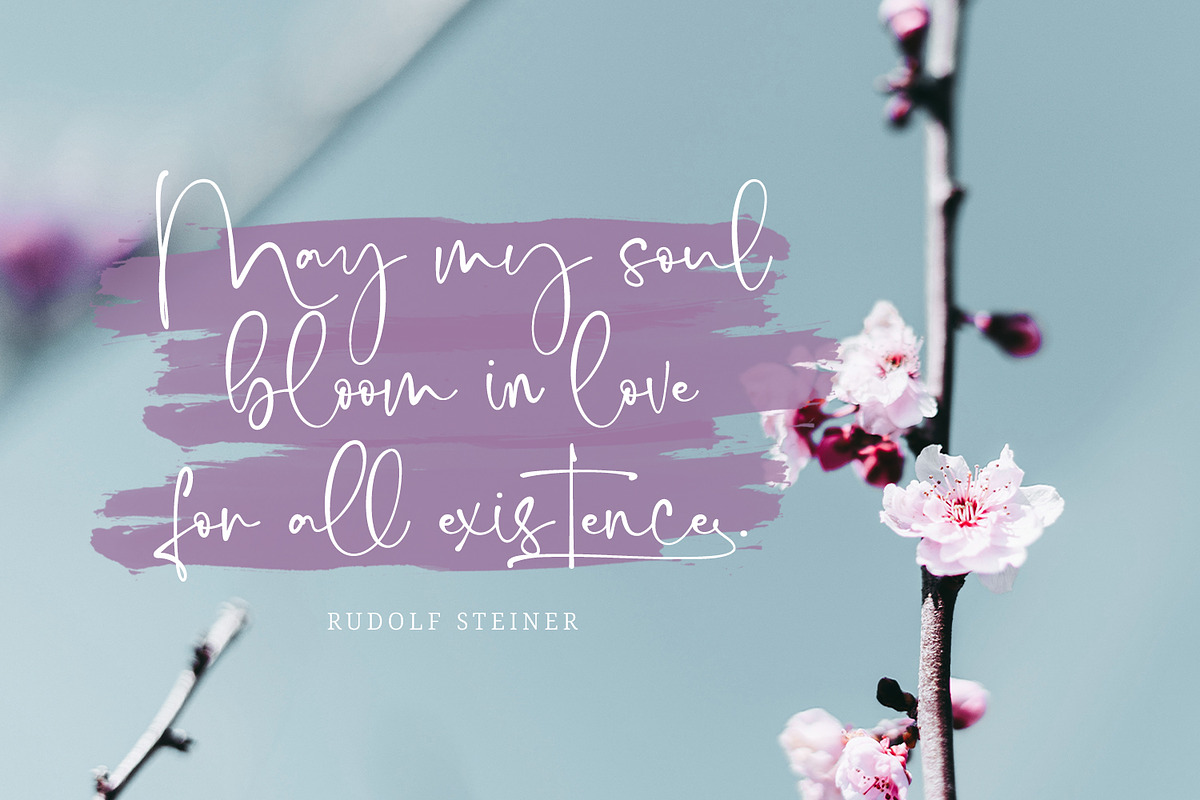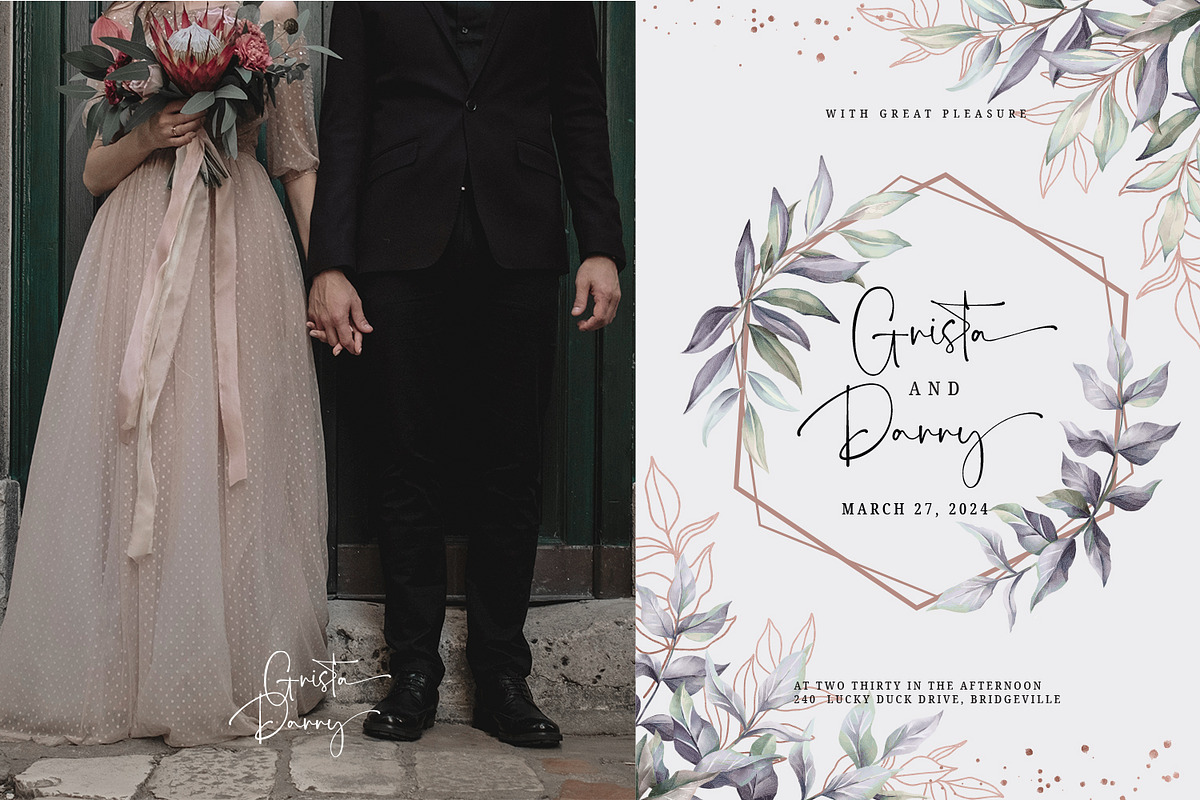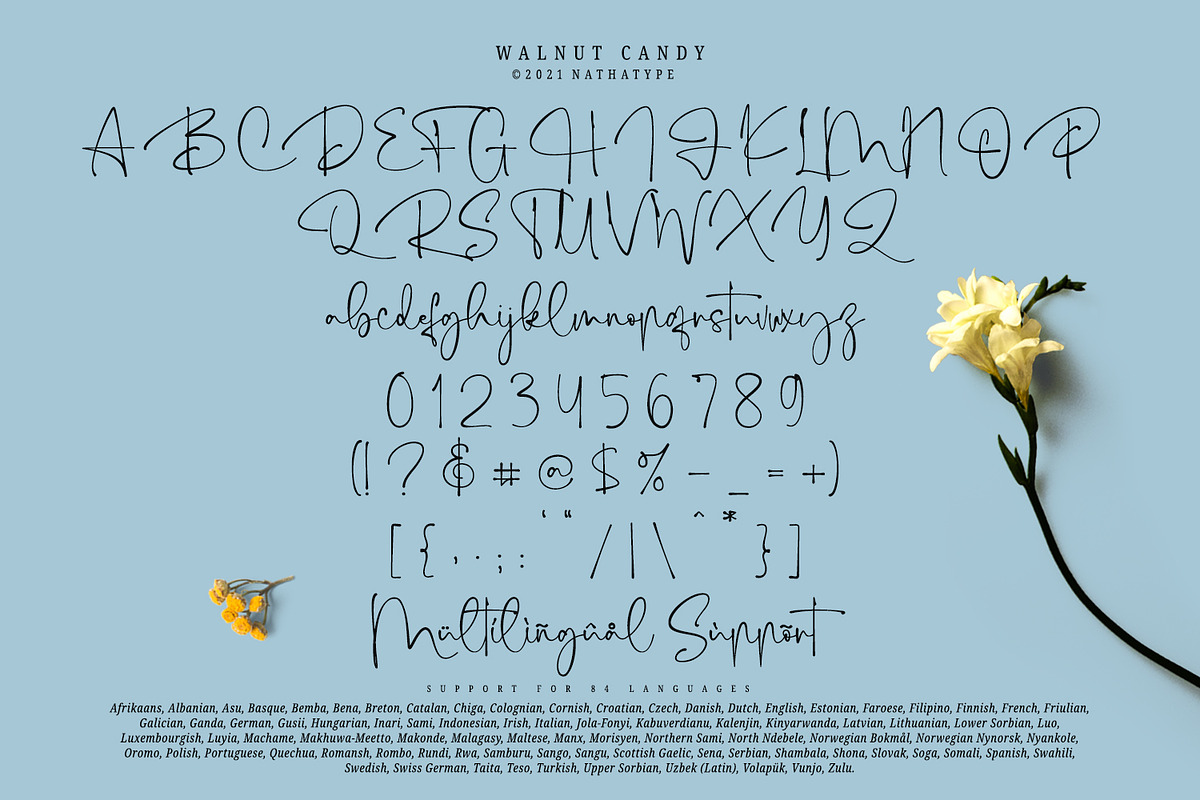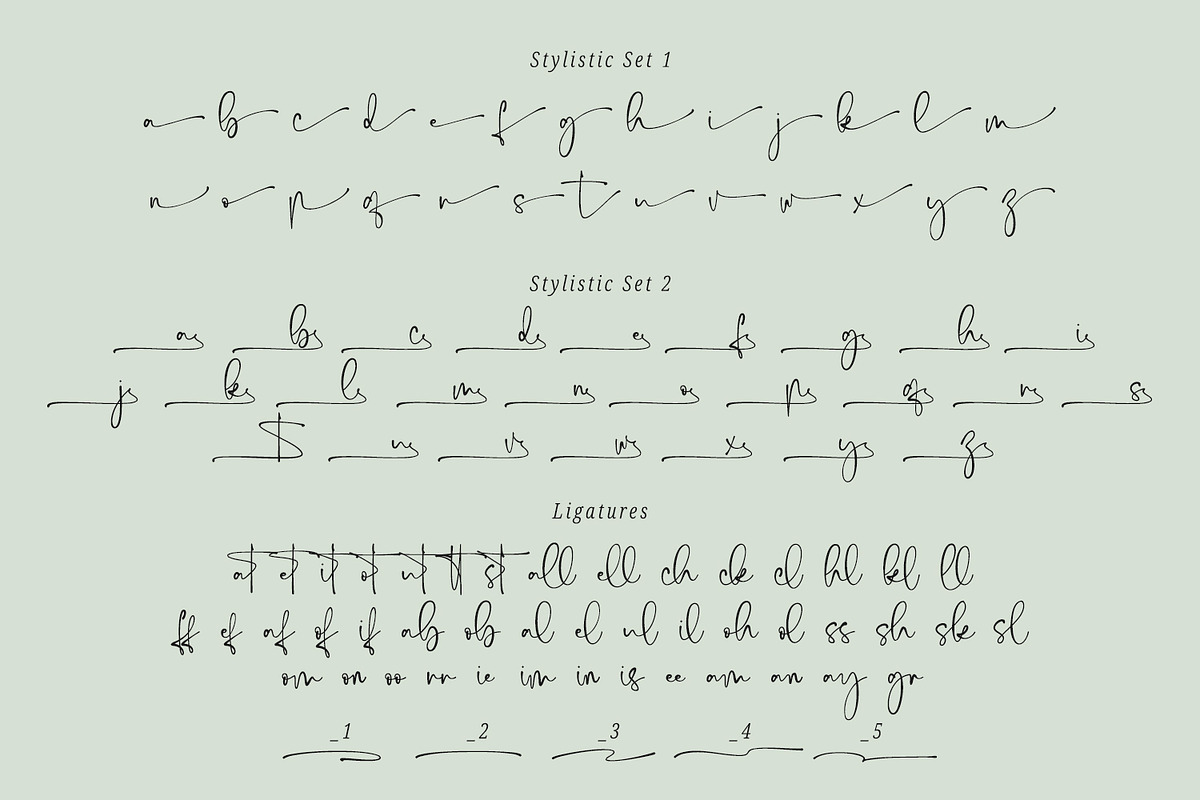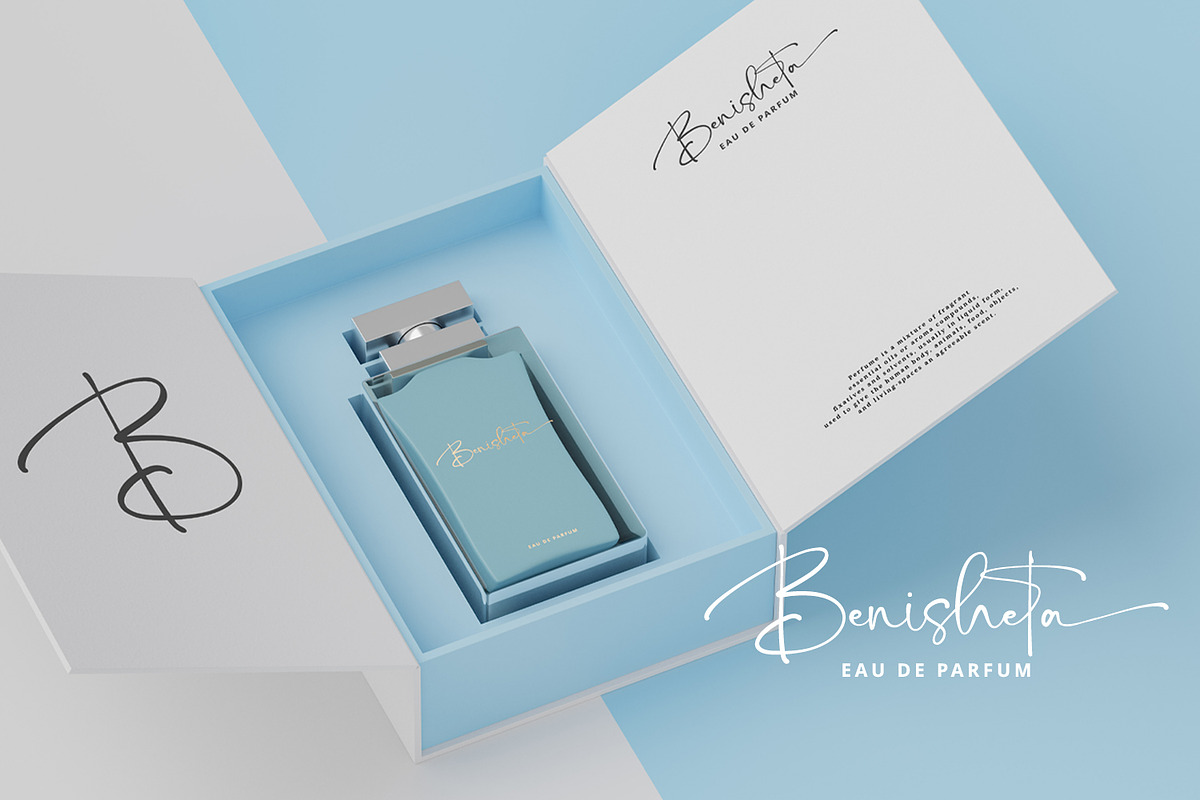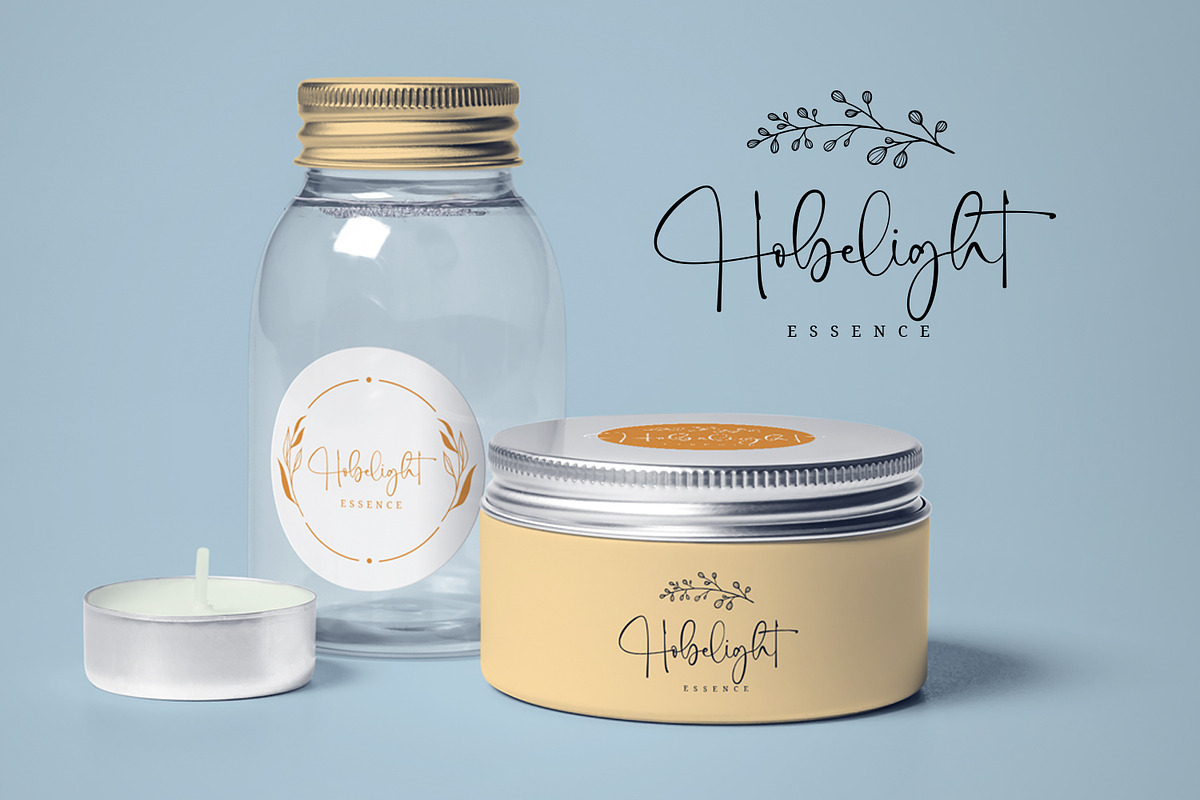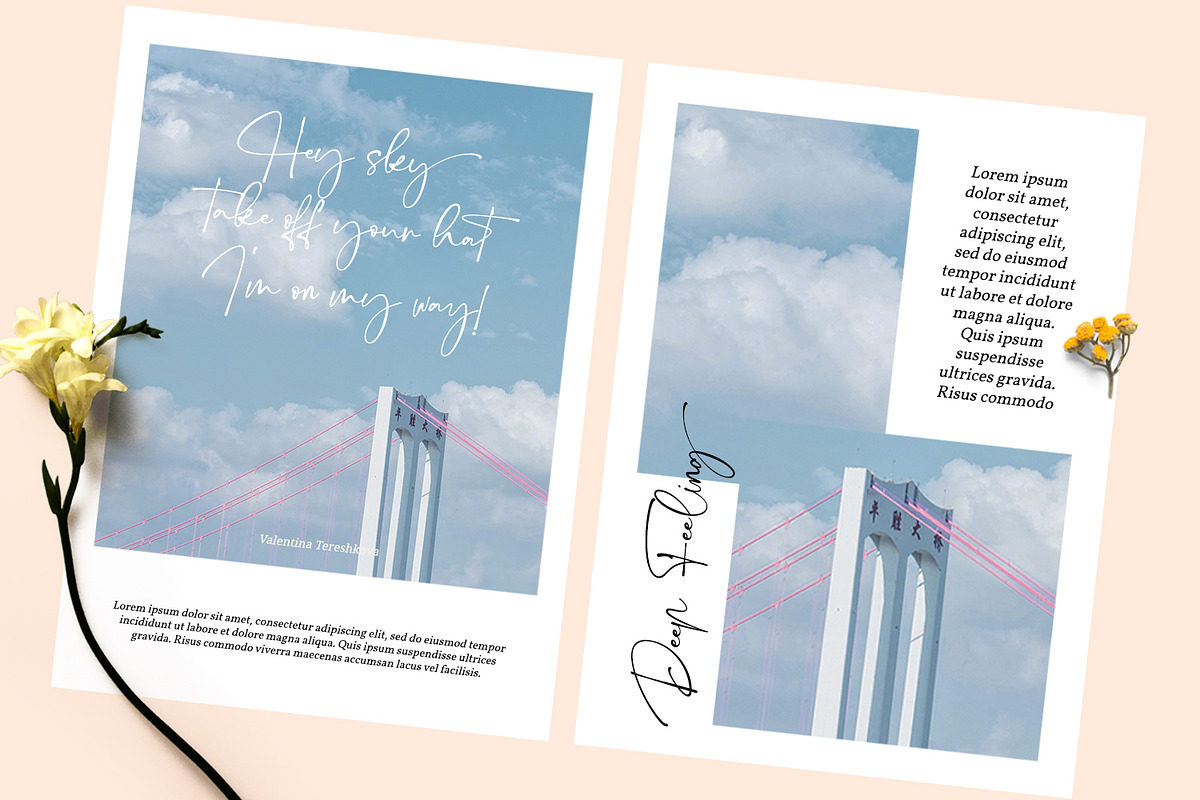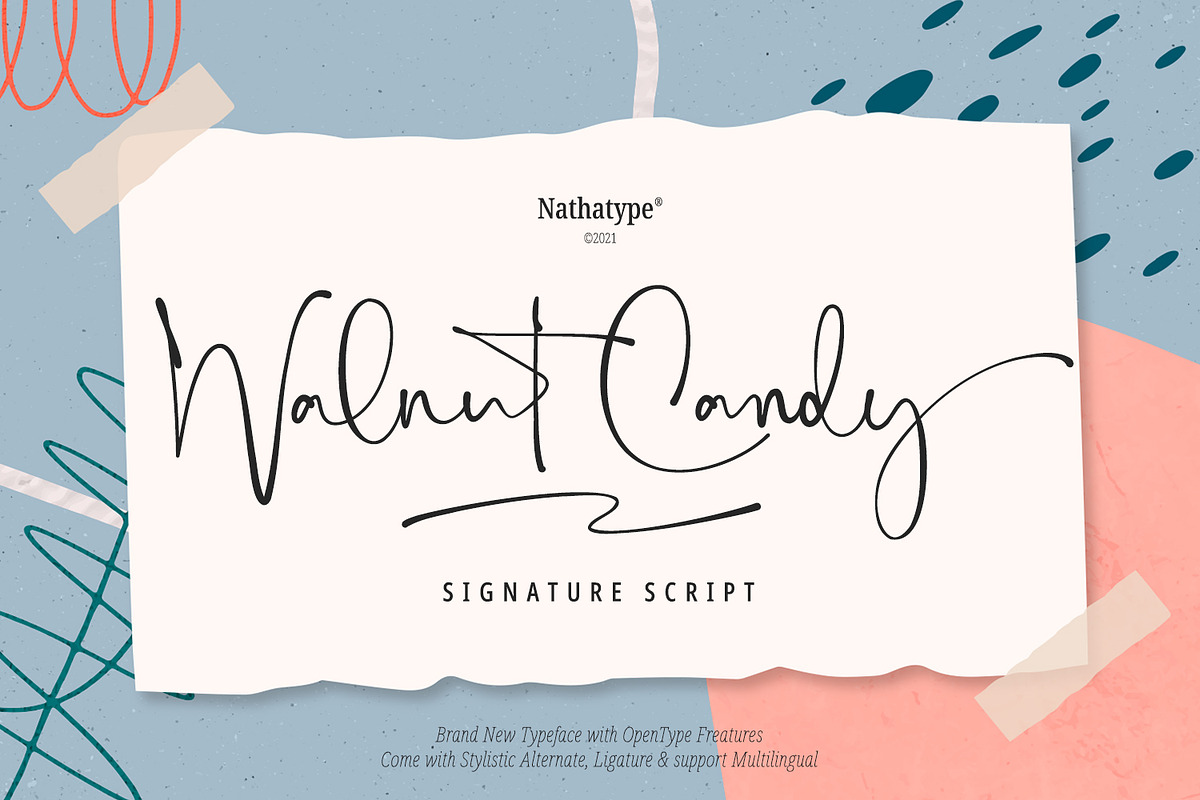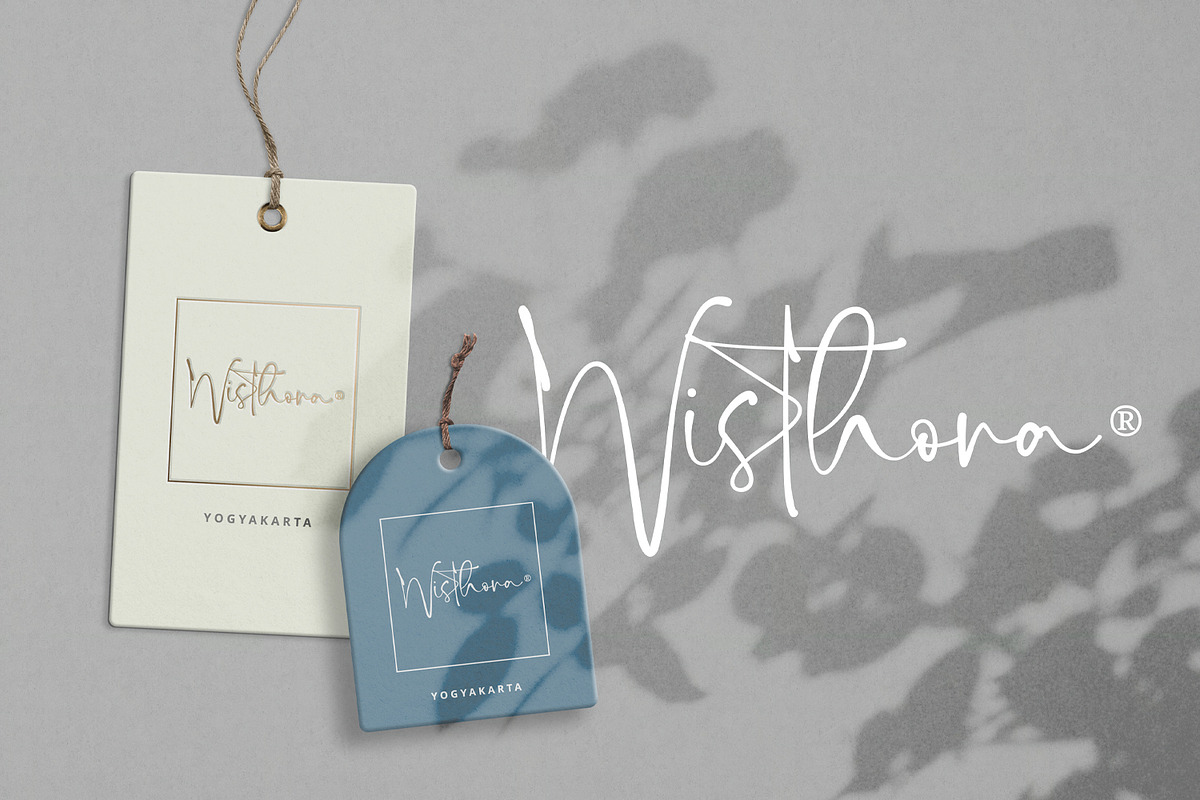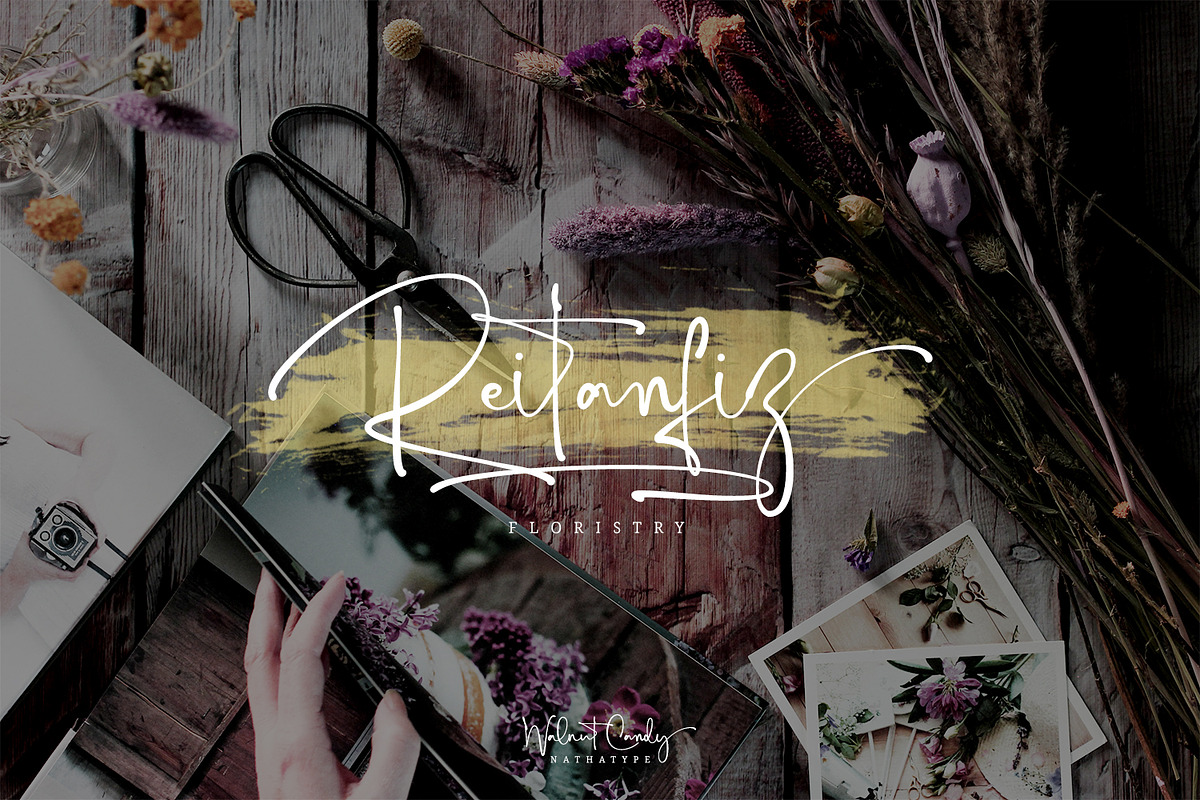
Walnut Candy
Walnut Candy-A Signature Font
Walnut Candy is a handcrafted font designed to bring your branding to life and add a touch of elegance, modernity and style. Perfect for social media branding projects, fashion designs, printed quotes, packaging, or even as a stylish text overlay to any background image.
Our font always includes Multilingual Support to make your branding reach a global audience.
- Stylistic Sets